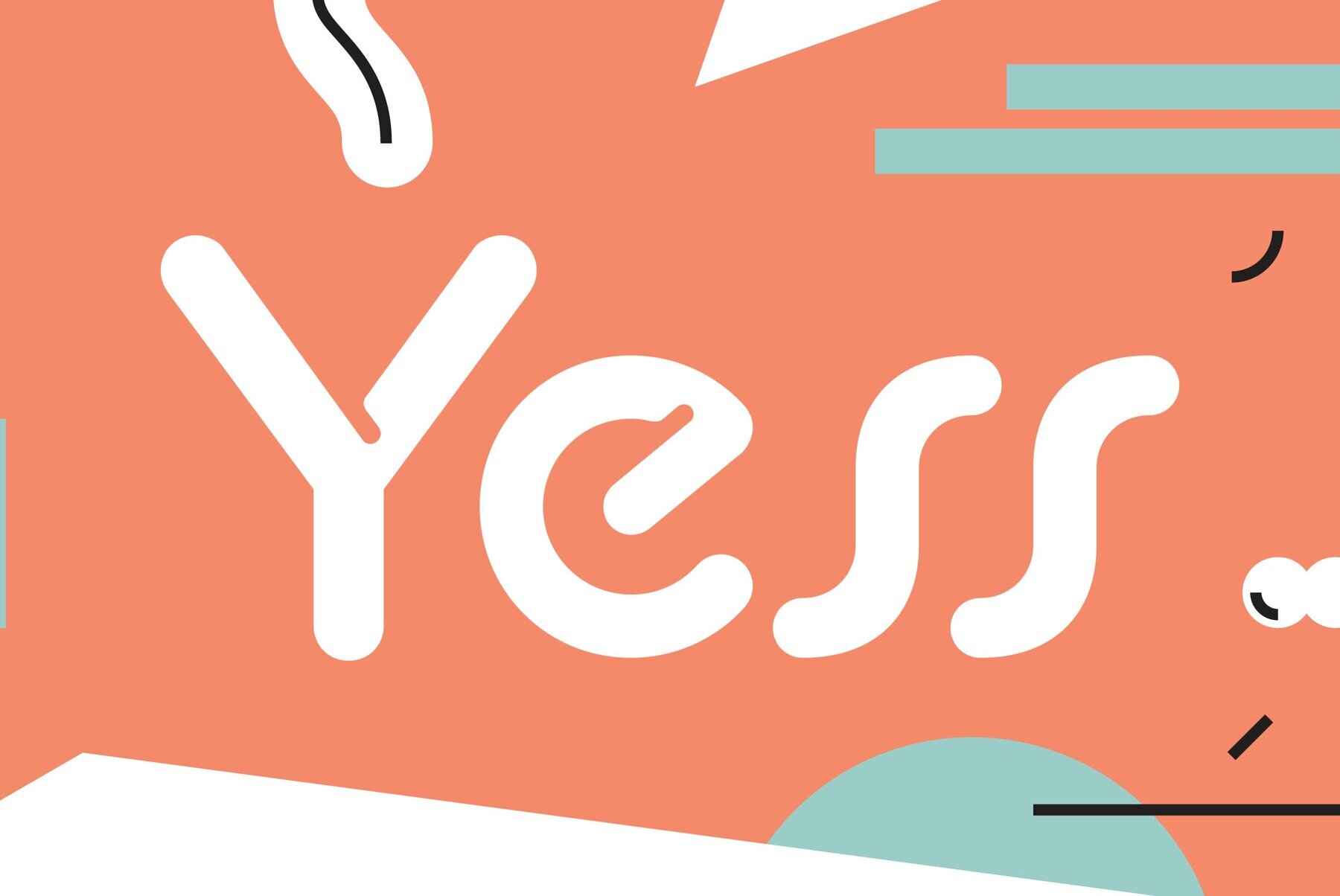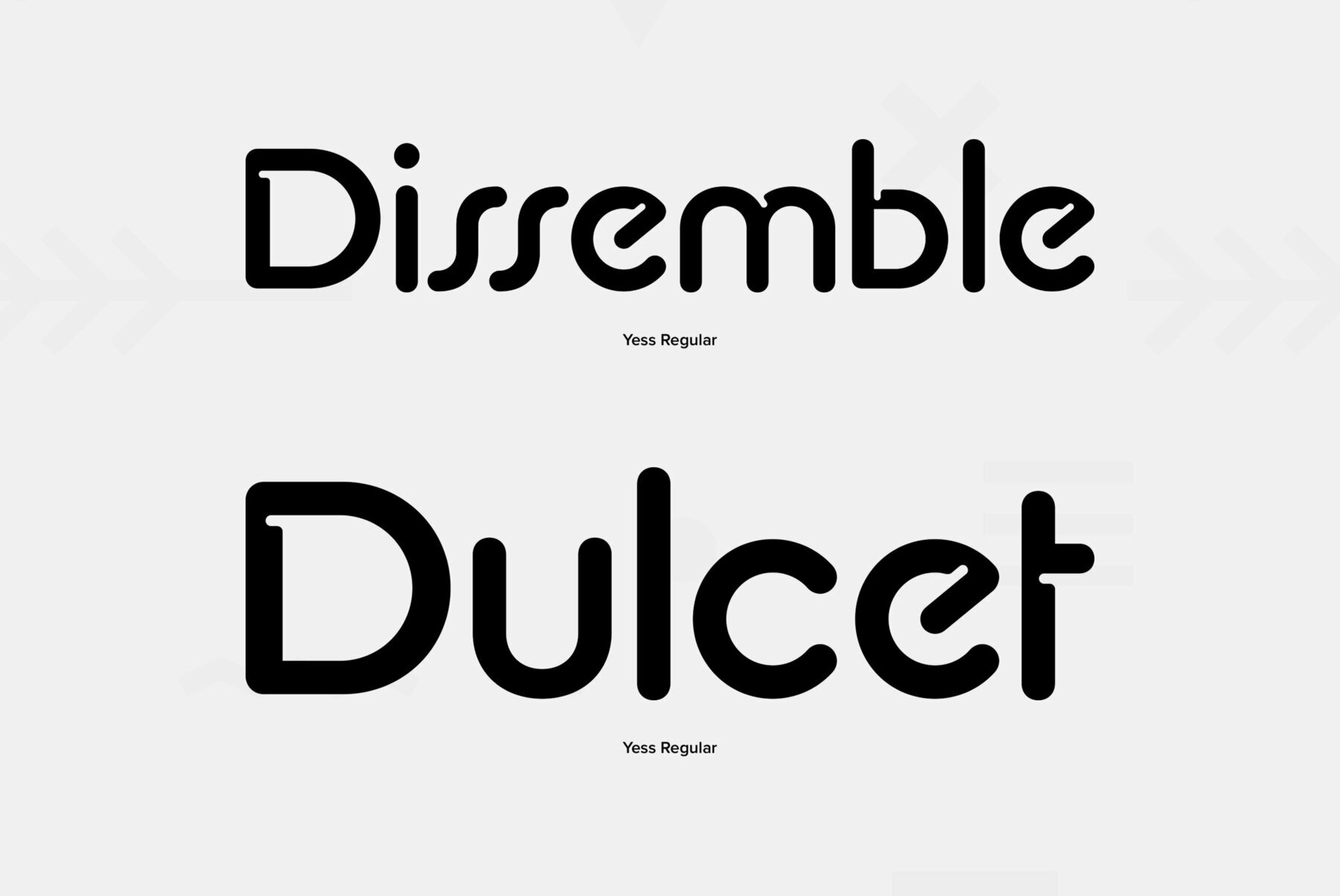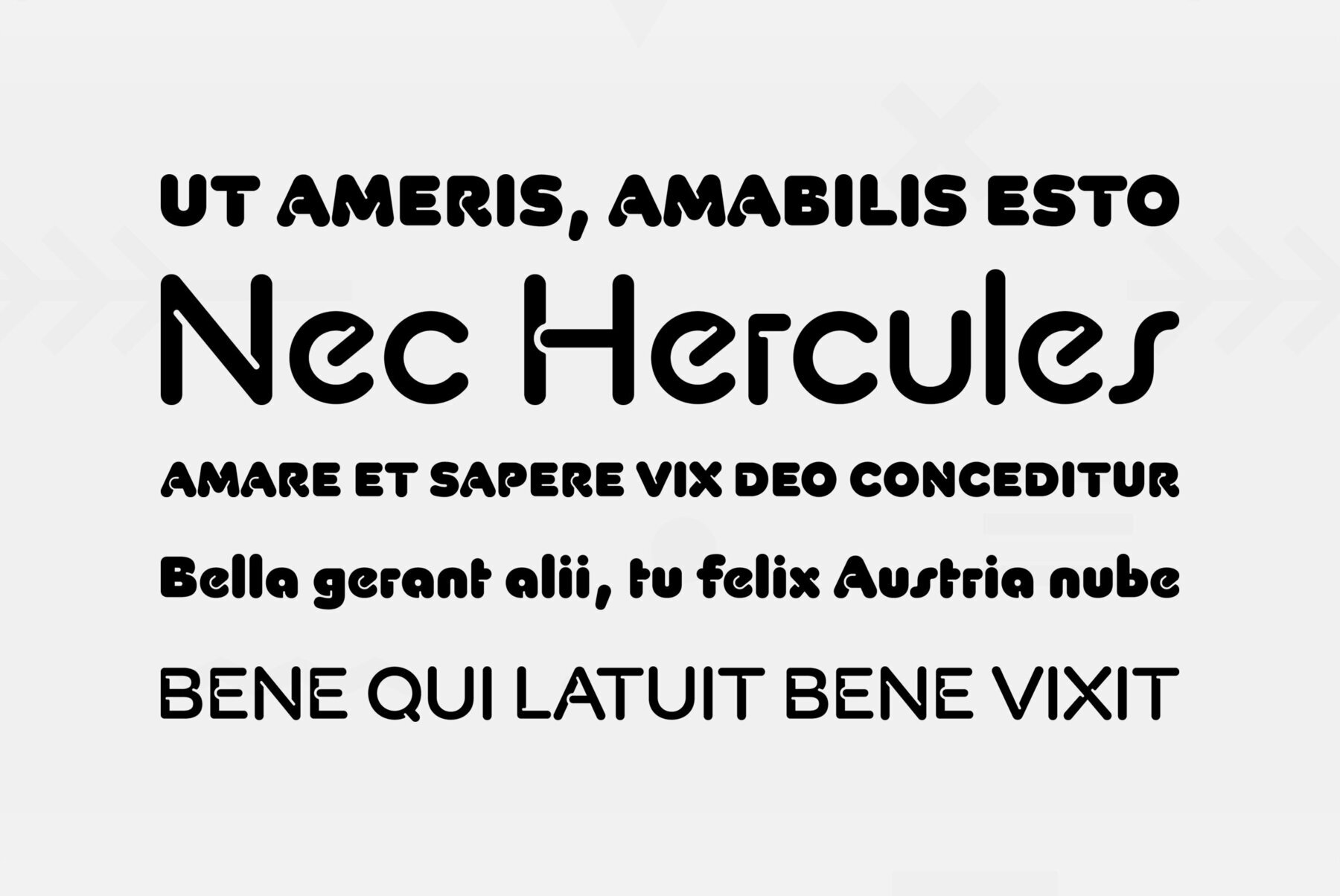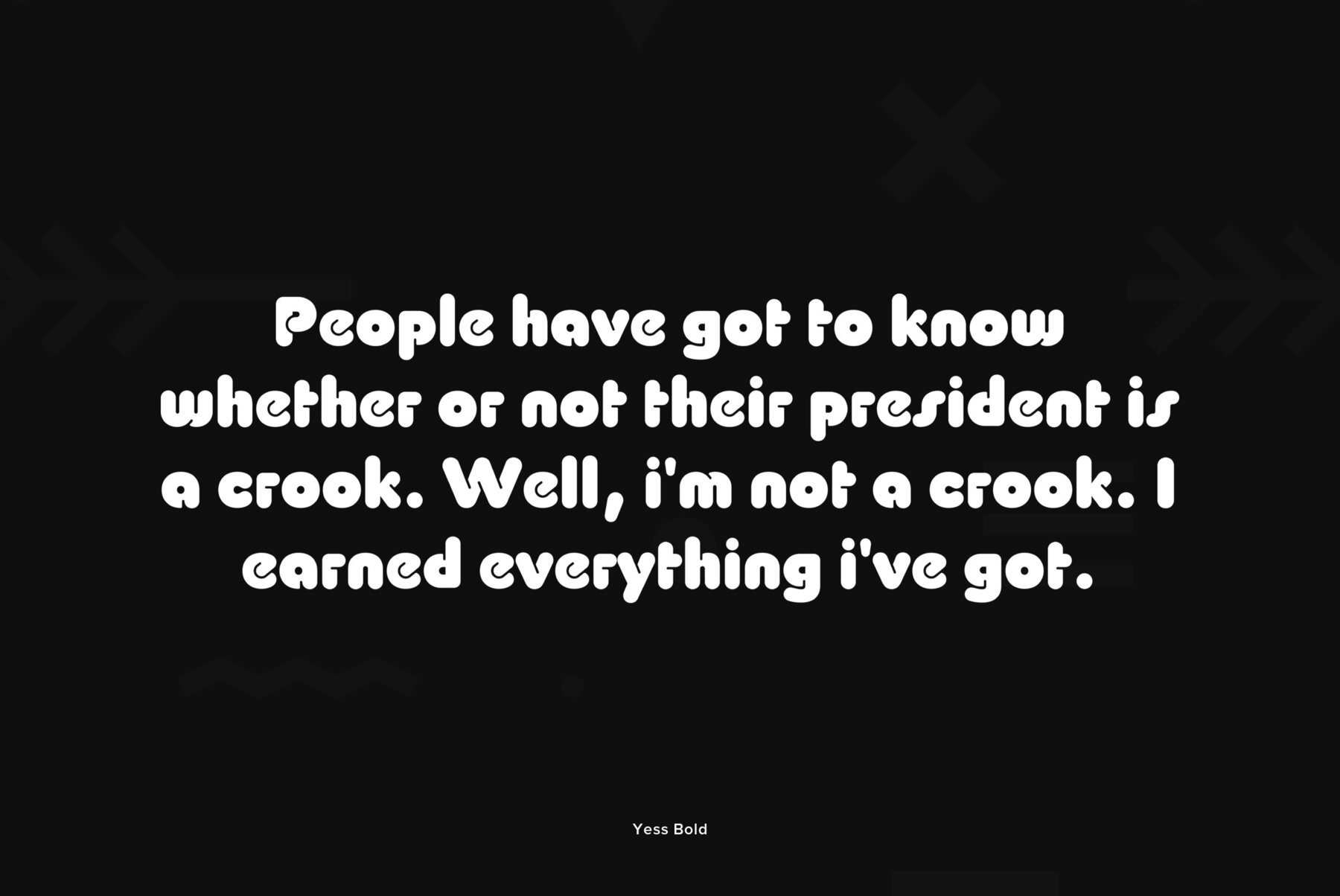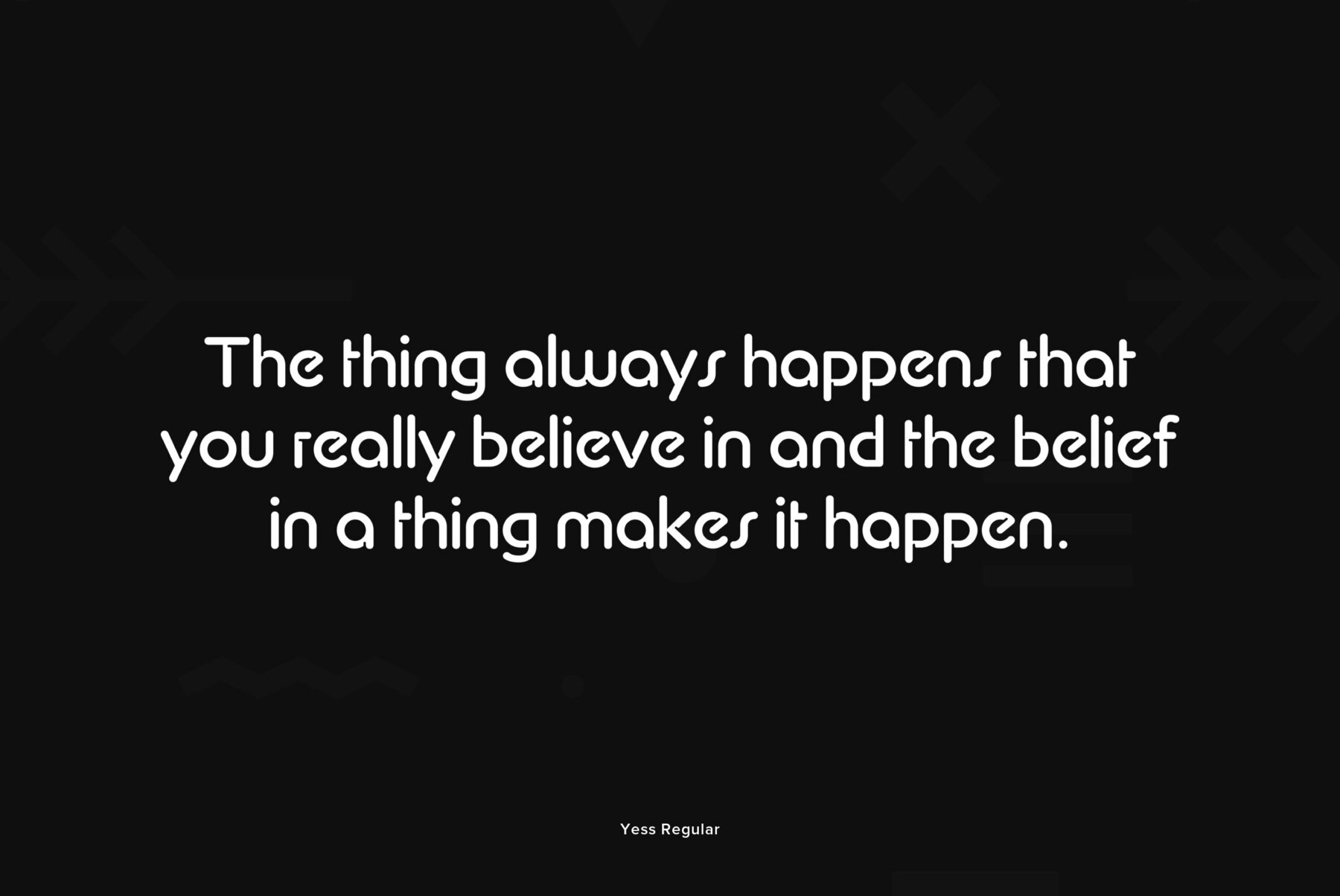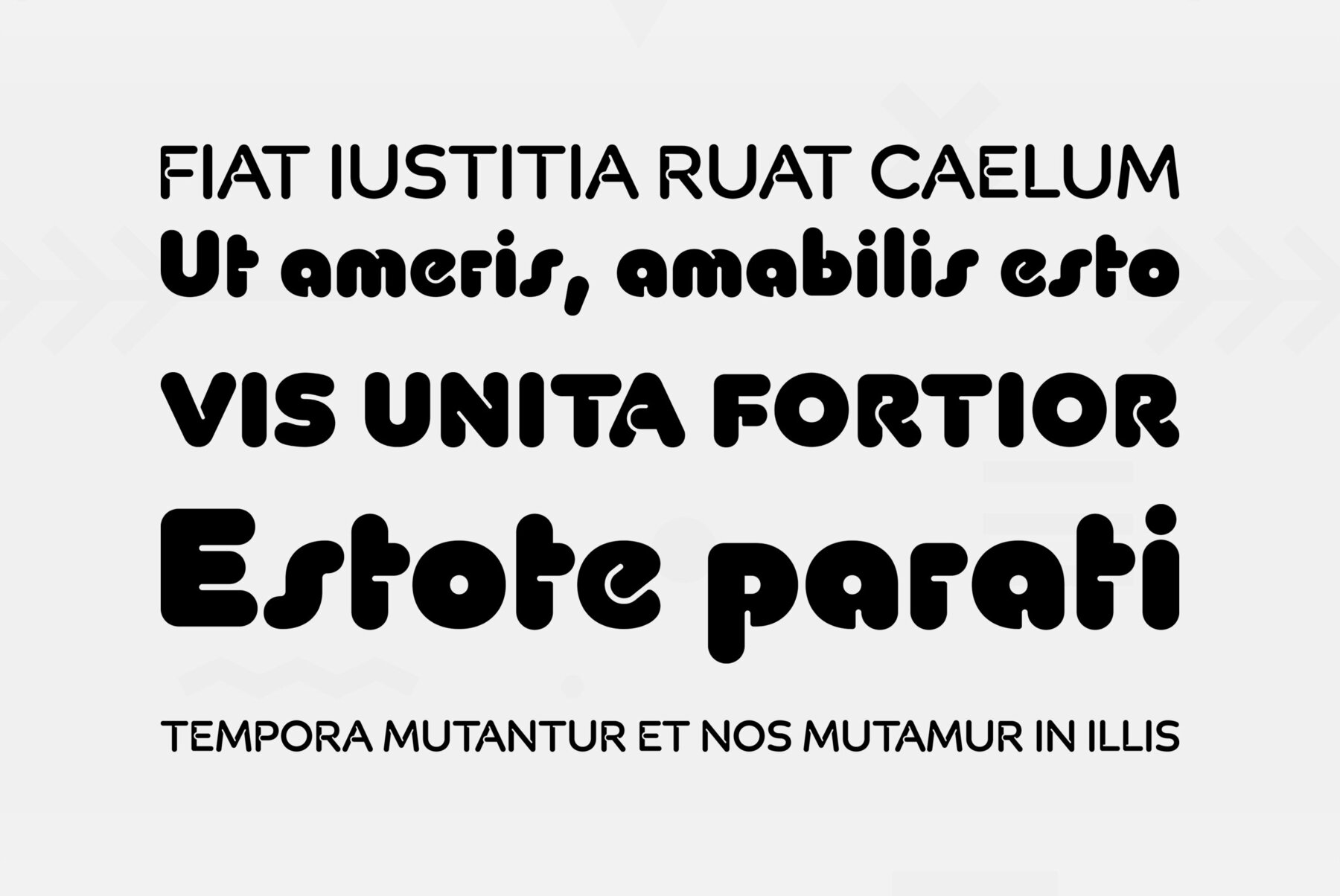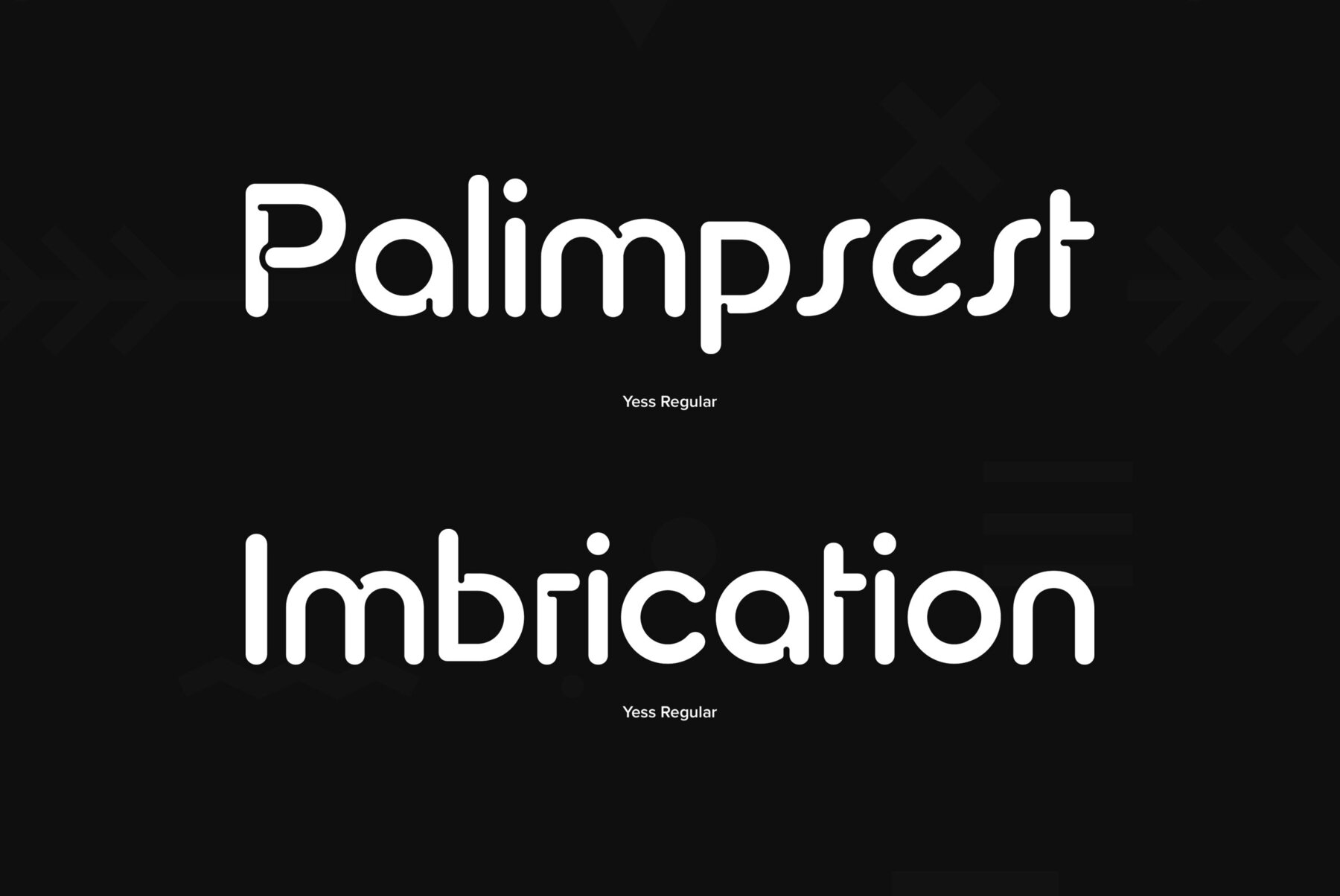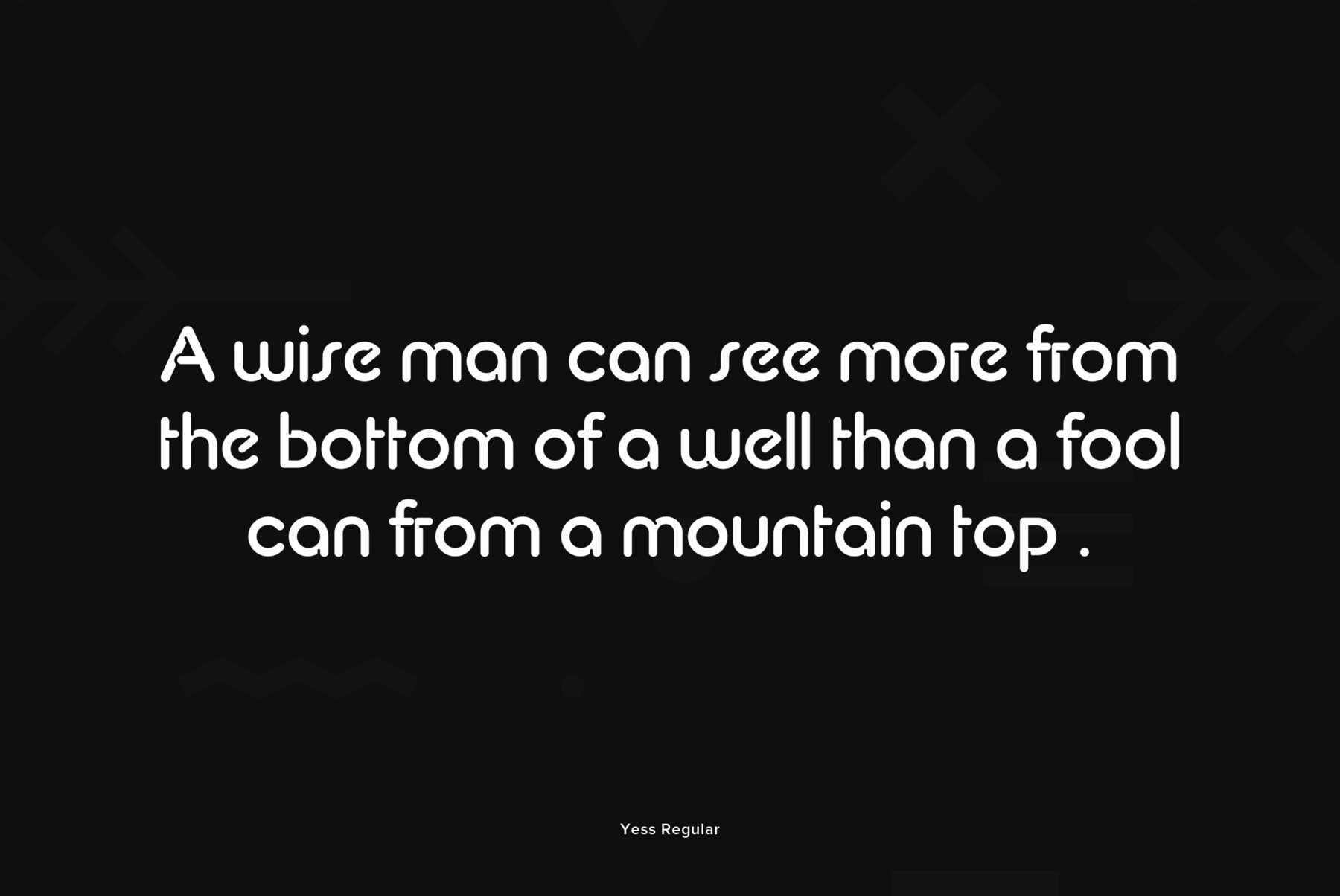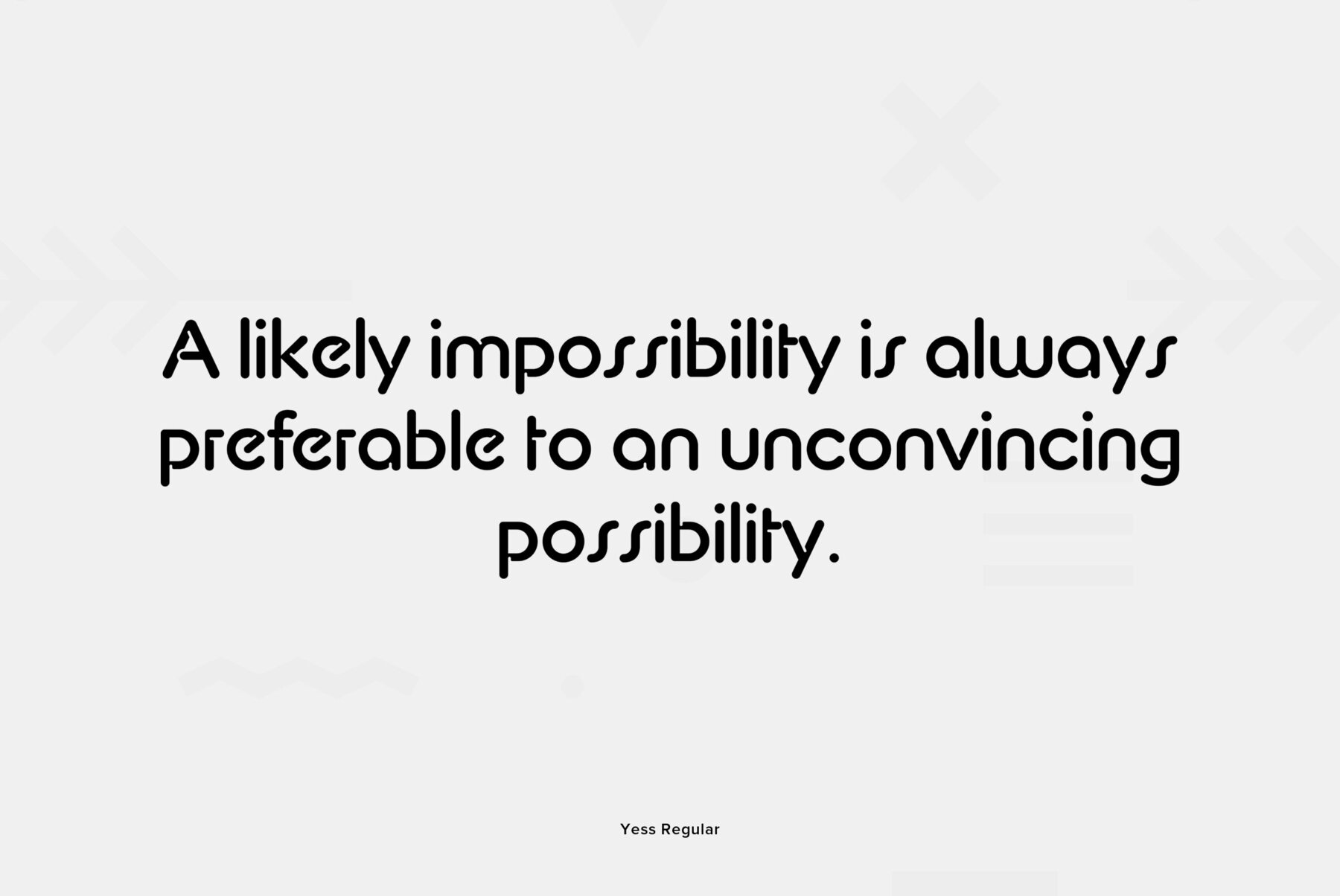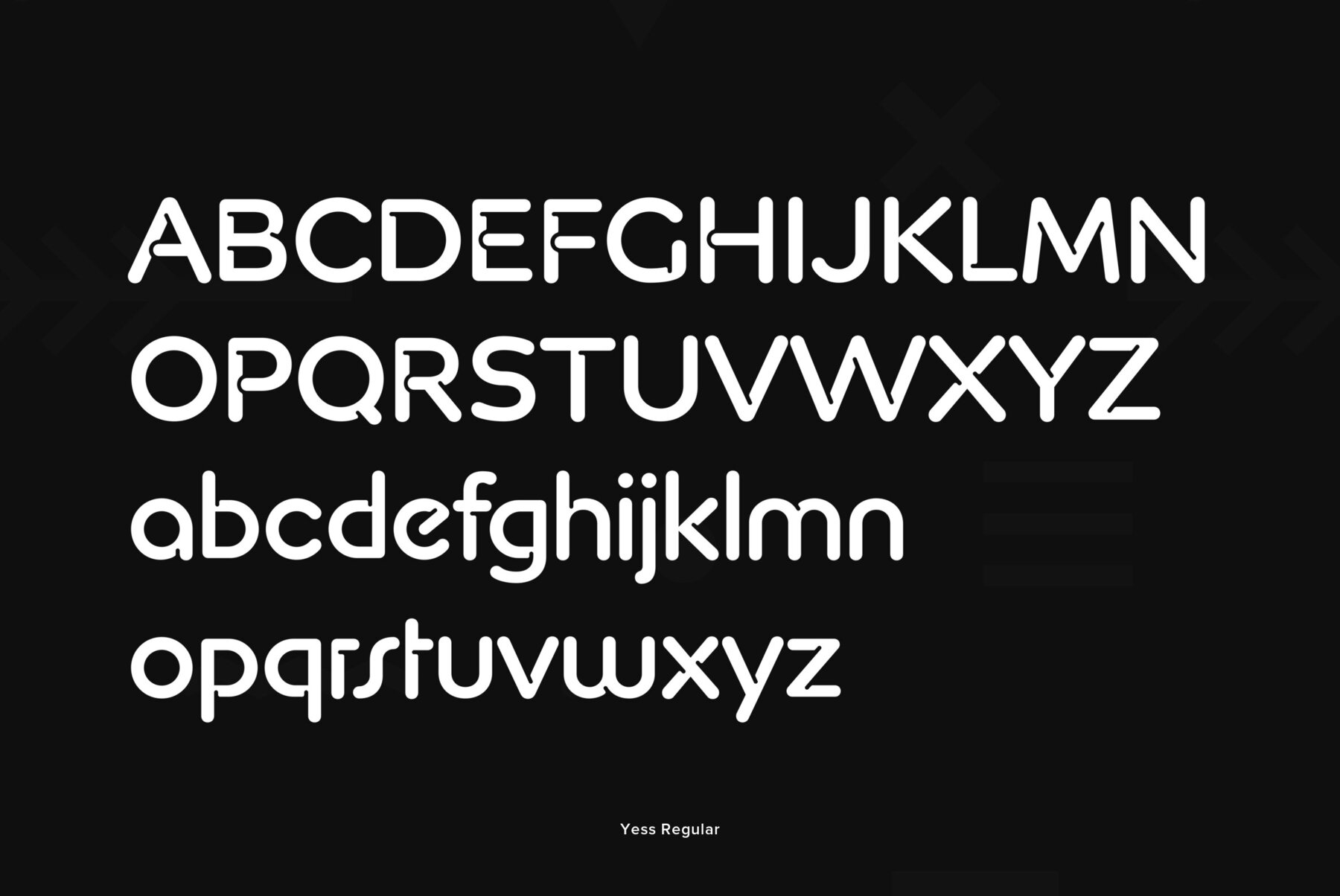
Yess is a revival of the typeface designed by Oleg Karpinsky in the middle of 70's and primery was used in advertising posters for Soviet state foreign trade company named 'Soyuzchimexort' in early 80's of the past century. Digital version was made for ParaType in 2007 with addition of light weight.